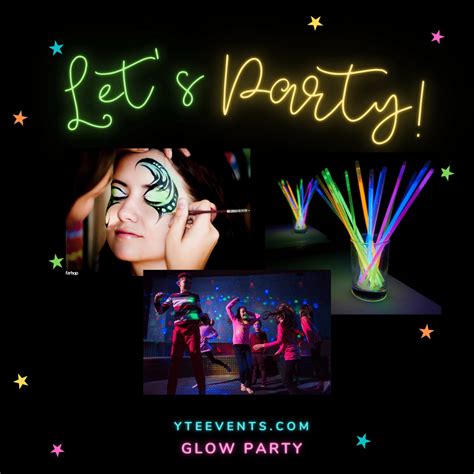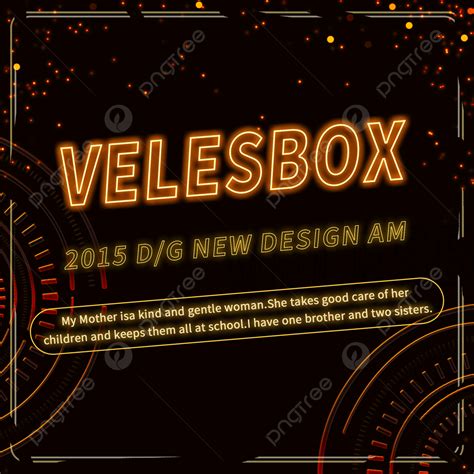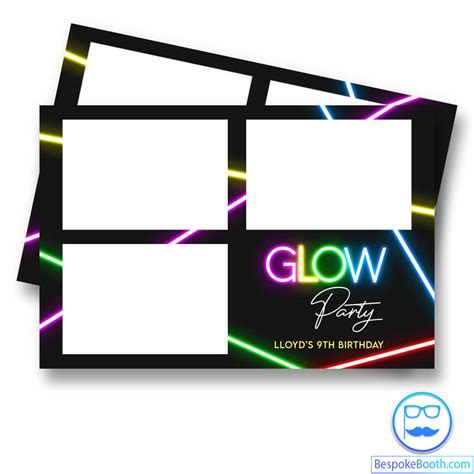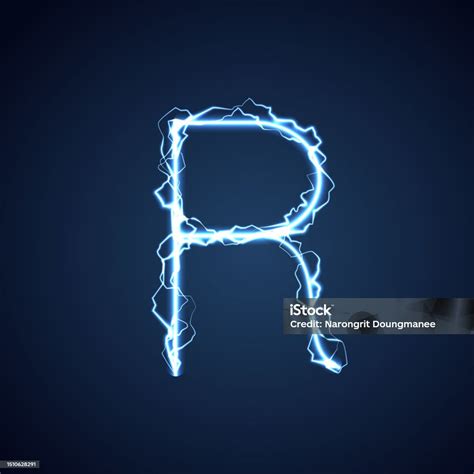
Design a neon-drenched case requires careful attending to every optic detail, and choosing the perfect font for glow company invitation and signage is one of the most critical stairs to set the mood. When the lights go downwardly and the blacklights flicker on, your composition needs to do more than just relay information; it involve to radiate energy and pop against the dark background. Whether you are designing for digital invitations, large-scale event streamer, or custom apparel, the right typeface can make the difference between a dull announcement and an electrifying invitation that guest can not wait to attend.
Understanding Typography for Neon Themes
Selecting a font for a glow company involves understanding how light-colored and coloration interact. You aren't just picking a flesh; you are picking a watercraft for neon effects. Most designers prioritise bluff, high-contrast, or futuristic style that mimic the essence of light-emitting tubes or laser project. The finish is to ensure the schoolbook remain legible even in low-light environs while experience inherently "electric".
Key Characteristics of High-Impact Glow Fonts
- High Weight: Thick, blocky, or slab-serif typeface ply more surface area for neon glowing effects, gradients, and outer glows to be use efficaciously.
- Geometrical Shapes: Fonts with clean, geometrical lines frequently feel more modern and tech-inspired, utterly complementing the esthetic of a nine or rave background.
- Retro-Futurism: Styles reminiscent of the 80s synth-wave era, such as monospaced or laser-cut aesthetic, are incredibly democratic for glow-themed case.
- High Readability: Even with heavy styling, the letter must not conflate into one another when you add a glow fuzz, which can obscure slender detail.
Top Font Styles for Your Glow Party
When curating your optical assets, categorize your options based on the specific "vibe" of your event. A kid's birthday party will require a different esthetical than a advanced EDM lounge event. Below is a breakdown of mode that work good when paired with neon effects.
| Font Category | Best Usage | Visual Effect |
| Bluff Sans Serif | Banners & Headings | High legibility with maximal glow space. |
| Script/Neon Sign | Decorative Accents | Mimics hand-blown neon tube lights. |
| Techno/Cyberpunk | Rave/Club Flyers | Gritty, industrial, and high-energy look. |
Implementing Neon Effects on Your Typography
Once you have select your face for glow company materials, the magic happens in post-production or design software. To accomplish that authentic ne luminescence, postdate these professional stairs:
- Prefer a high-contrast bag color for the textbook (oft a very light, desaturated pastel or white).
- Apply an inner glow with a insidious blur to symbolize the core of a light-colored pipe.
- Add multiple outer glow layers with increase opacity and blur size to model light-colored dispersion.
- Use a soft brushwood to add "hot spots" at the nook or crossroad of letter to mimic high-voltage strength.
💡 Billet: Always test your final pattern on a shadow background in your package to ensure the glow volume is equilibrate and the textbook doesn't get a hazy pickle.
Best Practices for Glow Party Design
Composition is but one part of the equivalence. To truly create your baptistry for glow party flyers reflect, consider the surrounding design elements. Avoid clutter the page with too many vie coloring; stick to a pallet of "blacklight" favourite: electrical blue, magenta, acid viridity, and UV yellow. Contrast is your better acquaintance when test to get text appear as if it is physically radiate off the screen or paper.
Avoiding Common Pitfalls
- Over-Glowing: Too much outer glow can create the font illegible. Maintain the nucleus of the schoolbook crisp.
- Utilize Thin Serifs: Extremely lean face lose their encroachment when ne effect are applied, as the "glow" often washes out delicate strokes.
- Ignore Demarcation: Never use dark colors for your text unless they are meant to be a secondary constituent; neon involve a shadow ground and bright schoolbook to act.
Select the correct typeface affect balancing aesthetic prayer with functional pattern. By prioritizing bold, high-contrast way and layer your glow effects carefully, you can transform bare text into a vibrant centerpiece for your event. Always proceed your audience in mind, ascertain that even in the most gumptious party environments, your content remain clear and inviting. With the correct combination of font choice, coloring palette, and light simulation, you can create professional-grade visuals that catch the high-voltage tone of a perfect glow company.